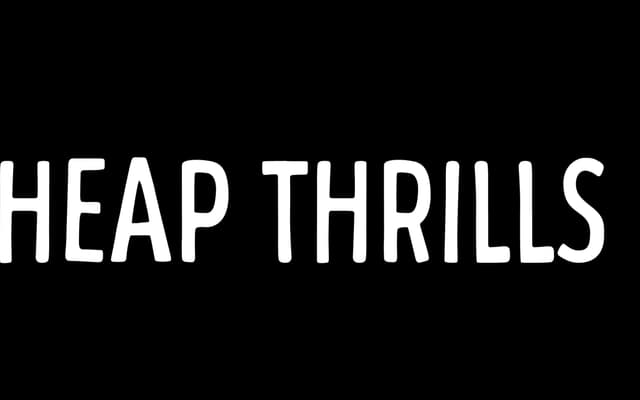
Cheap Thrills
A condensed, hand-drawn sans with a rough, gritty character aimed at badge and logo work that calls for a human touch.
Drawn with an intentionally imperfect hand, Cheap Thrills leans into the kind of worn, tactile quality that suits patch badges, logotypes and brand marks with a street or craft edge. The character set covers the full alphabet, numerals and an extended punctuation set alongside bonus glyphs. Its tight condensed proportions and gritty texture make it readable at display sizes while retaining plenty of personality.
Condensed and hand-drawn in character, Cheap Thrills sits firmly in the display category as a hand-rendered sans with a rough, gritty aesthetic suited to logos and badges rather than text setting.